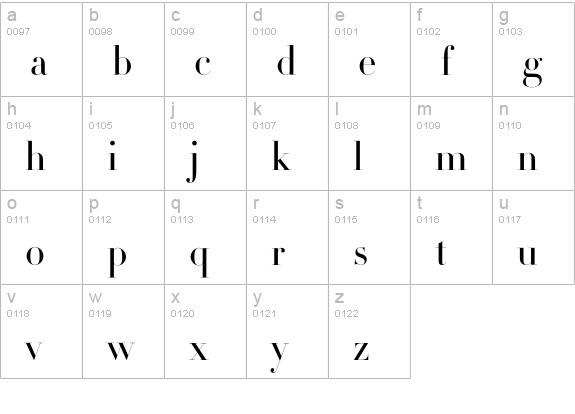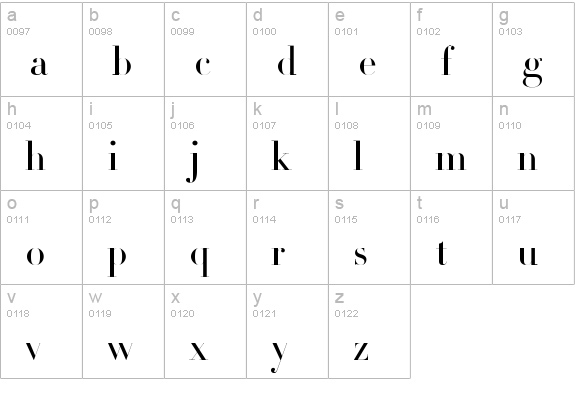
Didot-HTF-M64-Medium Font Details
Didot-HTF-M64-Medium is a balanced, medium-weight variant in the Didot typeface family \xE2\x80\x94 well suited to sub-headlines, navigation, and balanced editorial work.
The Didot-HTF-M64-Medium font is a timeless and elegant typeface that exudes sophistication and refinement. With its graceful lines and classic serif style, this font is perfect for conveying a sense of luxury and sophistication in any design project. Whether you're creating a high-end brand identity, elegant wedding invitations, or stylish editorial layouts, Didot-HTF-M64-Medium will add a touch of class and sophistication. The versatility of this font makes it suitable for a wide range of design applications, from print to digital. Its medium weight strikes the perfect balance between readability and style, making it ideal for body text as well as headlines and titles. The precise letterforms and consistent spacing ensure a polished and professional appearance in any context. Best of all, Didot-HTF-M64-Medium is completely free to download at FontsMarket.com, making it accessible to designers and creatives of all levels. Whether you're a seasoned professional or just starting out, this font is a valuable addition to your typographic toolkit. Enhance your designs with the timeless elegance of Didot-HTF-M64-Medium and elevate your projects to new heights of sophistication.